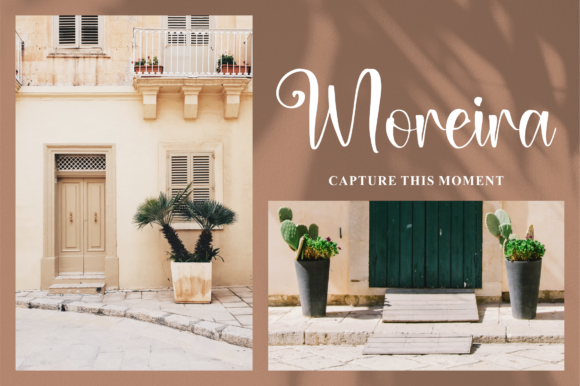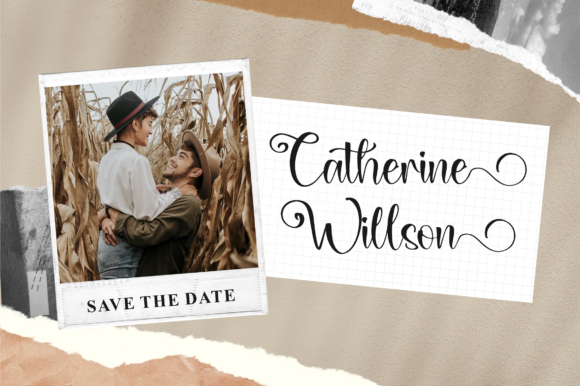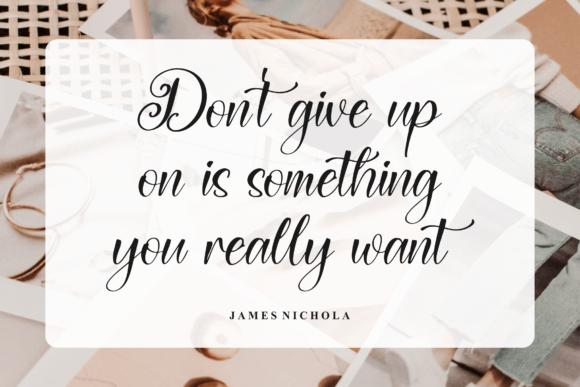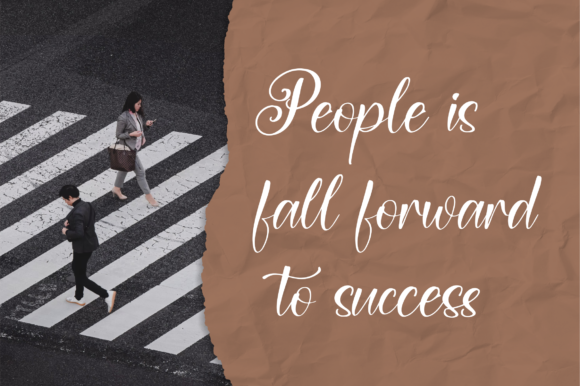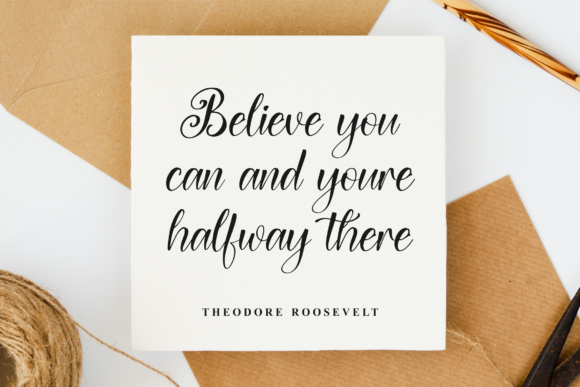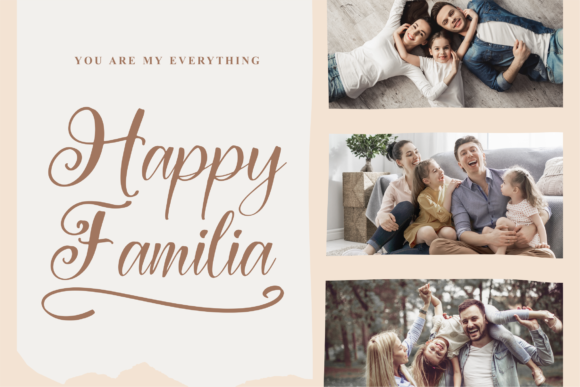
Discover the Magic of Belary Rhainy Font
As a designer, have you ever felt the thrill of creating something beautiful and unique? Maybe it was the moment you stumbled upon the perfect color palette, or the way a font seemed to bring your entire design together. For me, that moment came when I discovered the enchanting Belary Rhainy Font. Its elegant script style has been a game-changer in my projects, adding a touch of sophistication and personality to each design.
Whether you’re working on a logo, branding project, or product packaging, the Belary Rhainy Font is an excellent choice. Its versatility and PUA encoding make it easy to access and use, ensuring that you can bring your creative vision to life with ease. With its beautiful script style, this font is a valuable addition to any designer’s toolkit, offering endless possibilities for creating stunning designs that captivate and inspire.
Belary Rhainy Font Key Features
- Font Family: Belary Rhainy is a unique and elegant script font designed for various applications.
- Unique Characteristics: Features a flowing, handwritten feel with subtle imperfections, adding a touch of personality to any design.
Belary Rhainy Font Review
Overall, I’m impressed with the unique character of the Belary Rhainy Font. ✨ It’s clear that the designer aimed to create a distinctive and eye-catching typeface, and in that, they’ve largely succeeded. The font’s whimsical feel and playful curves are perfect for projects that require a touch of personality.
- ✨ The font’s irregularities add a human touch, making it feel more relatable and engaging.
- ✨ The contrast between thick and thin lines creates visual interest and helps to draw the reader’s eye.
- ✨ The font’s versatility means it can be used for a wide range of projects, from branding to editorial design.
- ⚠️ The font may be difficult to read at small sizes, due to its complex letterforms and tight spacing.
- ⚠️ The font’s irregularities can also make it challenging to use in situations where a more traditional, formal typeface is required.
- ⚠️ The font may not be suitable for projects that require a lot of text, due to its busy and distracting nature.
Overall, I think the Belary Rhainy Font is a great choice for designers who want to add a touch of personality to their projects. While it may not be suitable for every situation, it’s a great option for those who want to create something truly unique and memorable.
Belary Rhainy Font is ideal for creative and artistic projects, such as:
1. Social media graphics.
2. Wedding invitations.
3. Artistic posters.
4. Branding and logo design.
To get the most out of Belary Rhainy Font, experiment with different font sizes, colors, and combinations to create a unique and eye-catching design.